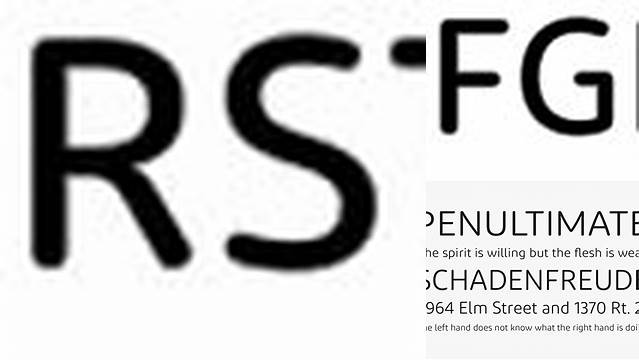
Diodrum Rounded Medium Font: Free Download Guide
Diodrum Rounded Medium Font: Free Download & Unleash Your Creativity!
Hey guys! Are you on the hunt for a versatile and stylish font that can take your design projects to the next level? Look no further! The Diodrum Rounded Medium font is here, and the best part? It's available for free download! This article is your ultimate guide to everything Diodrum Rounded Medium – from its features and uses to where you can grab your own copy and start creating amazing stuff. So, let's dive in!
What Makes Diodrum Rounded Medium Special?
First off, let's talk about what makes Diodrum Rounded Medium such a fantastic choice. This font is all about a modern, clean aesthetic with a touch of personality. It strikes the perfect balance between being readable and visually appealing. Its rounded edges give it a friendly feel, making it ideal for a wide range of projects. Whether you're working on a website, a poster, a logo, or even a mobile app, Diodrum Rounded Medium can adapt to your needs. The medium weight offers great legibility without being too heavy or overpowering. It’s super easy on the eyes, ensuring your audience can easily read your message. The font's clean lines and consistent design contribute to a professional look, making your content appear polished and well-crafted. Another cool thing is its adaptability. It works great in both large and small sizes, which is crucial for any designer. Imagine using it for headlines that grab attention, or body text that's comfortable to read. It's a workhorse font that does it all! Plus, since it's rounded, it adds a touch of playfulness that can be incorporated into projects for both businesses and personal use. This font isn't just about looks; it also boasts excellent kerning and spacing, which ensures that the characters fit together perfectly. This is a big deal when it comes to readability and how your designs look. The designers of Diodrum Rounded Medium really thought about the details to ensure your designs are as visually engaging as possible. Finally, and perhaps the best part, is the free download! You get access to a high-quality font without having to pay a dime. This makes it an accessible option for everyone, from professional designers to hobbyists. Seriously, what's not to love?
Where Can You Use Diodrum Rounded Medium?
Alright, let's talk about where you can actually use this awesome font. The possibilities are practically endless! Diodrum Rounded Medium is super versatile and can be applied to all sorts of design scenarios. First off, it's perfect for website design. The rounded style makes it super friendly and easy to read. You can use it for headlines, body text, navigation menus, and buttons. It creates a user-friendly interface. It is a great option for any business or personal blog. Next up, we have branding and logos. This font can give your brand a modern, approachable vibe. It works super well for businesses that want to appear friendly, trustworthy, and up-to-date. Think about using it for your logo, business cards, and social media profiles. It can make your brand stand out. Another popular application is in print design. Posters, flyers, brochures, and even books can all benefit from the clean and readable nature of Diodrum Rounded Medium. It looks fantastic in print. You can use it for headings, subheadings, and body text. Plus, if you're into digital content creation, it's excellent for social media graphics. Create eye-catching posts, stories, and ads that grab the attention of your followers. It helps you create stunning visuals. And let's not forget about presentations. This font makes your PowerPoint or Google Slides presentations look professional and easy to follow. You can use it for titles, bullet points, and body text. It makes your information clear and easy to understand. Basically, anywhere you need text, Diodrum Rounded Medium can probably fit the bill! It's a font that's made to be used, so go crazy and let your creativity flow!
Tips for Using Diodrum Rounded Medium Effectively
Now that you have the font, how do you make sure you're using it effectively? First, think about contrast. Pair Diodrum Rounded Medium with other fonts to add visual interest. Combining it with a more structured font for headlines can create a nice balance. Make sure you select fonts that complement each other and make your designs stand out. Next, consider font sizes and weights. Experiment with different sizes to see what works best for your project. Use larger sizes for headings and smaller sizes for body text. This improves readability. You can also emphasize important words by using bold or italics. Always keep the context in mind. If your design is for a fun, informal project, feel free to use Diodrum Rounded Medium liberally. If it's a more professional project, use the font sparingly, and in a way that enhances the overall message. Next, it's essential to pay attention to kerning and leading. Kerning adjusts the spacing between individual letters, while leading is the space between lines of text. Make sure the text looks balanced and easy to read. The goal is to make sure your text is visually attractive and easy to understand. Additionally, think about color palettes. Diodrum Rounded Medium works well with a wide range of colors. Experiment with different color combinations to find the right look and feel for your design. Lastly, test your designs on different devices. Ensure that the font renders correctly on various screen sizes and resolutions. This is important if you want your designs to look good across all devices. With a little practice and experimentation, you'll be creating amazing designs in no time!
So, there you have it! Diodrum Rounded Medium is a fantastic font choice for anyone looking to add a touch of modernity, readability, and style to their designs. With its rounded edges, versatile nature, and the added bonus of a free download, it's a must-have for any designer's toolkit. Download it today, unleash your creativity, and start creating stunning designs. What are you waiting for? Happy designing, folks!